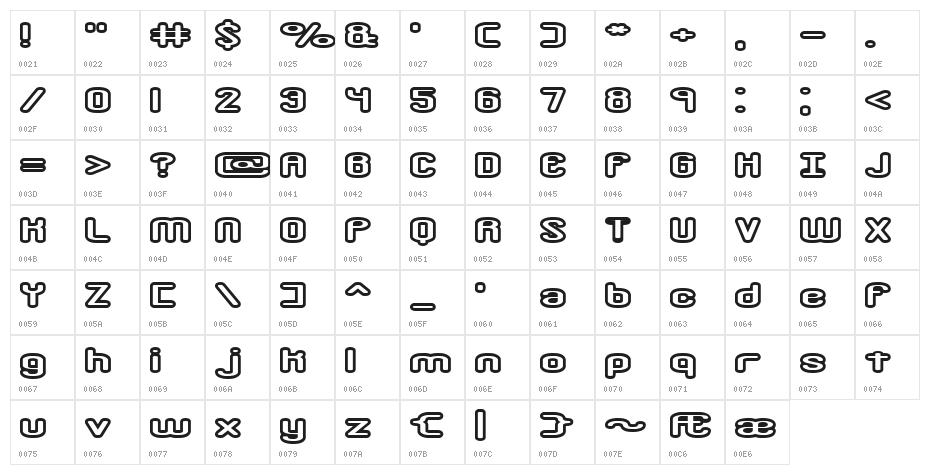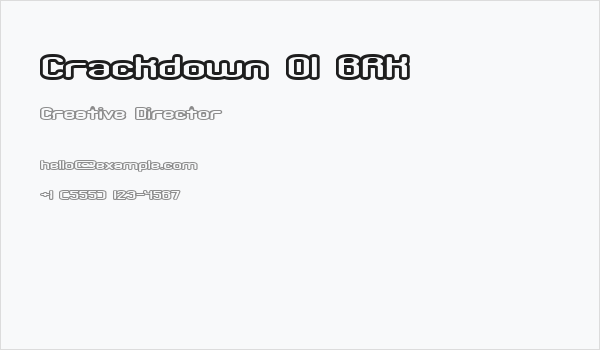
Crackdown O1 BRK Font
Crackdown O1 BRK Description
This font features a bold, rounded style with a distinct outline that gives it a playful and modern appearance. The characters are uniformly thick, creating a cohesive and structured look. The uppercase and lowercase letters maintain a consistent design, with smooth curves and a geometric influence. The numbers and special characters follow the same aesthetic, ensuring a unified appearance across all glyphs. The font's style is eye-catching and ideal for projects that require a contemporary and fun vibe.
Proposed ProjectsIdeal for posters, logos, children's books, and playful branding materials.